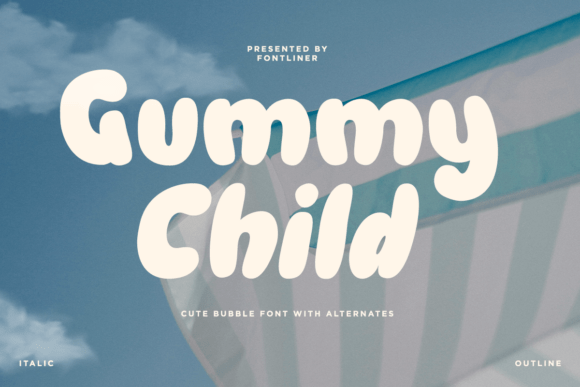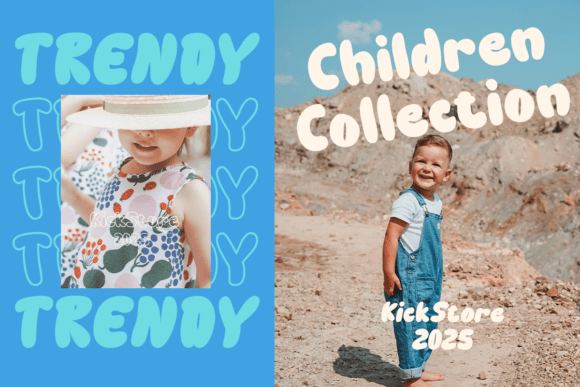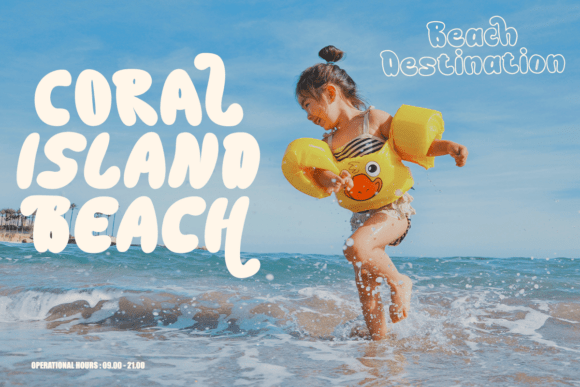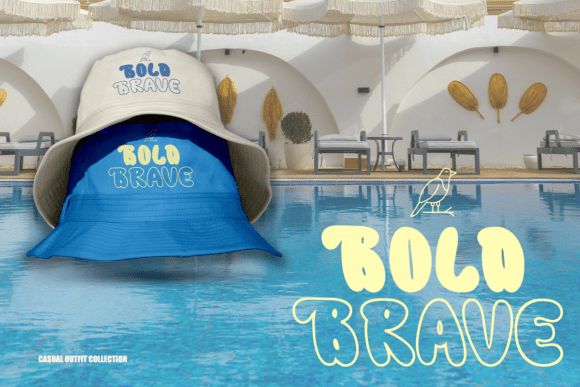
Gummy Child Font: A Playful & Cute Display Font for Social Media
About the Gummy Child Font
The Gummy Child Font is here to transform your projects with its distinctive character and style. Gummy Child is cute bubbel font, groovy font you’ve been waiting for! Its rounded, playful curves bring a touch of y2k nostalgia to any design, while its modern feel keeps it fresh and relevant. Gummy Chilkd perfect for social media graphics, website headers, or quirky merch, to add a touch of fun and personality.
Gummy Child’s playful energy makes it ideal for projects needing a youthful, approachable feel. It excels in headlines, short text blocks, logos, and packaging for brands targeting younger demographics—think children’s products, playful clothing lines, or fun food brands. However, its rounded forms and relatively large x-height make it less suitable for body text or lengthy paragraphs; readability suffers at smaller sizes.
Pairing Gummy Child with a clean sans-serif like Montserrat or Open Sans creates a balanced contrast, allowing the playful font to stand out while maintaining legibility. For a more retro vibe, consider pairing it with a geometric sans-serif such as Futura or a slightly more vintage-inspired serif typeface like Playfair Display.
The overall personality of Gummy Child is undeniably cheerful and nostalgic, but retains a contemporary edge. Avoid using it for projects requiring a sophisticated or authoritative tone.
Gummy Child Font Usage Examples
Gummy Child Font Example